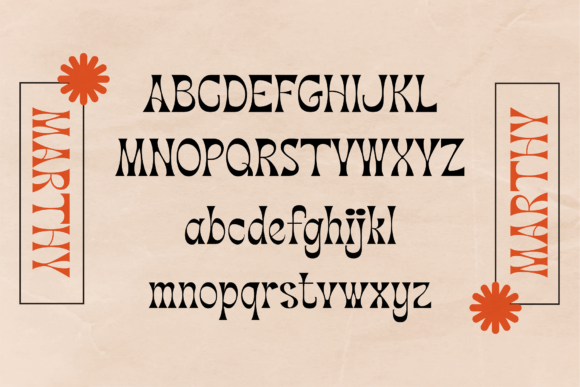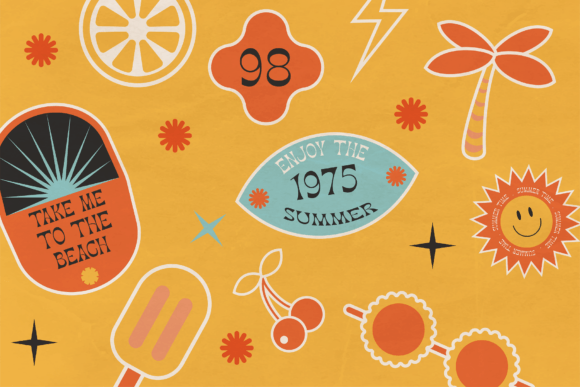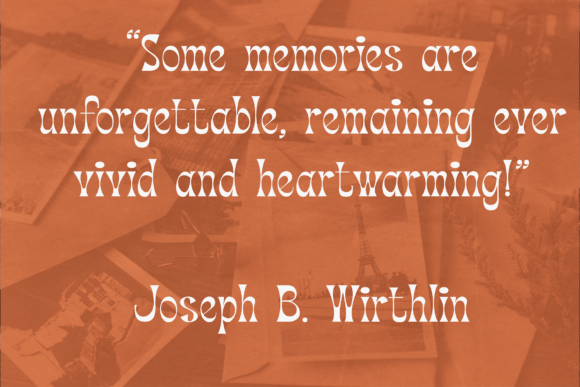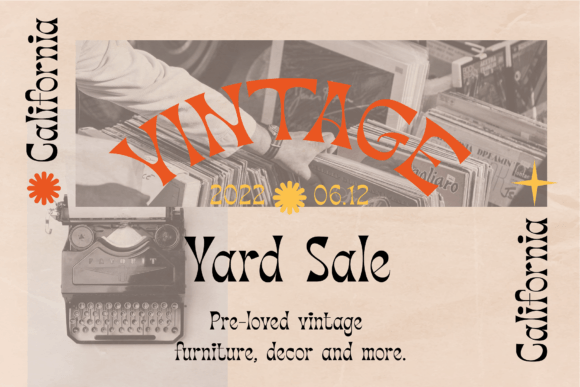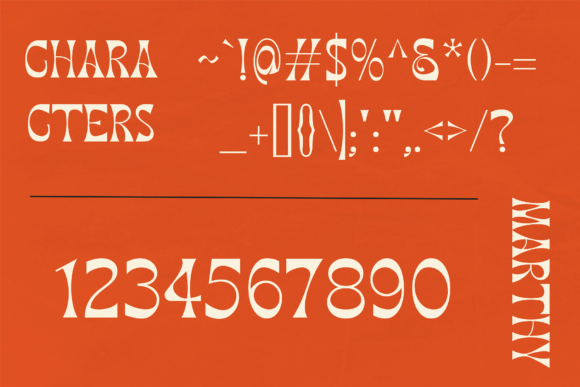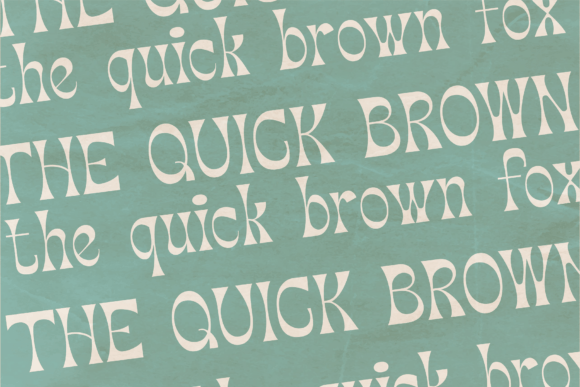
Introduction to Marthy Font
Marthy was inspired by Art Nouveau and 1970s psychedelic posters.
This expressive typeface is designed to be used for branding, music posters, album graphics, book titles, etc Evoke that nostalgic 60s/70s look today with Marthy.
Key Features of Marthy Font